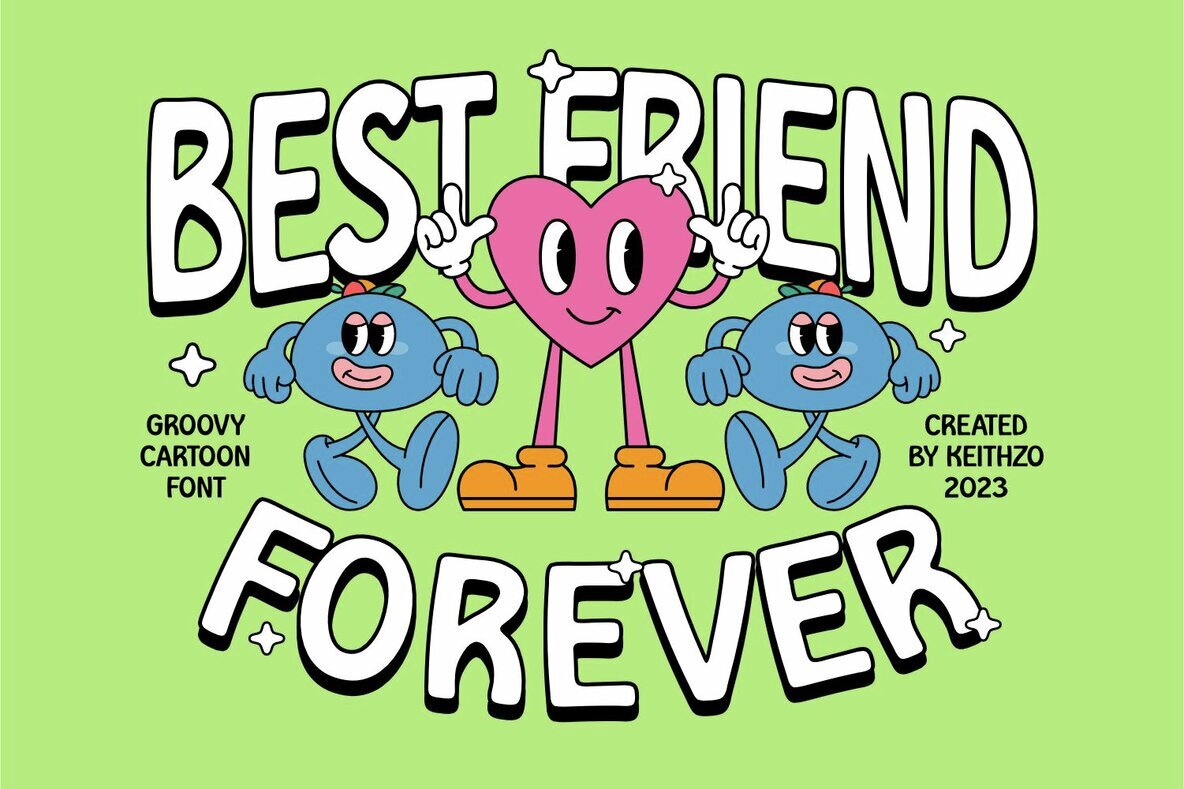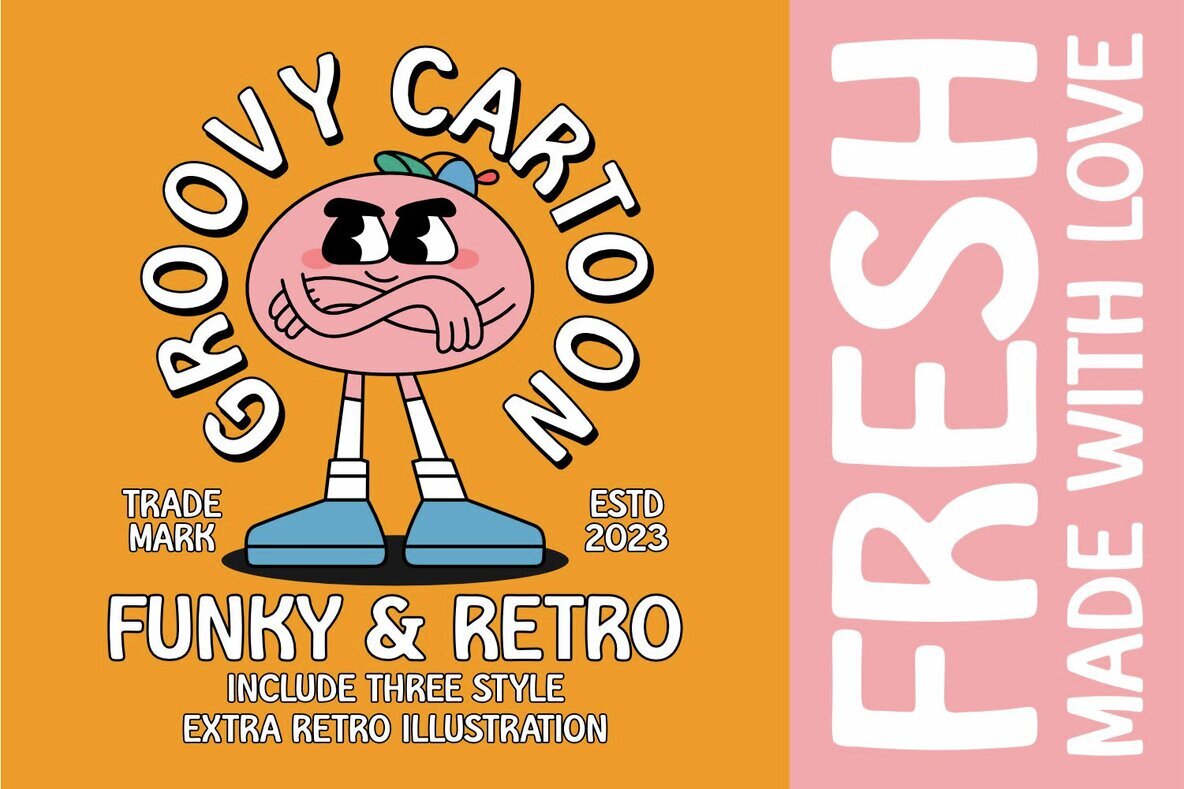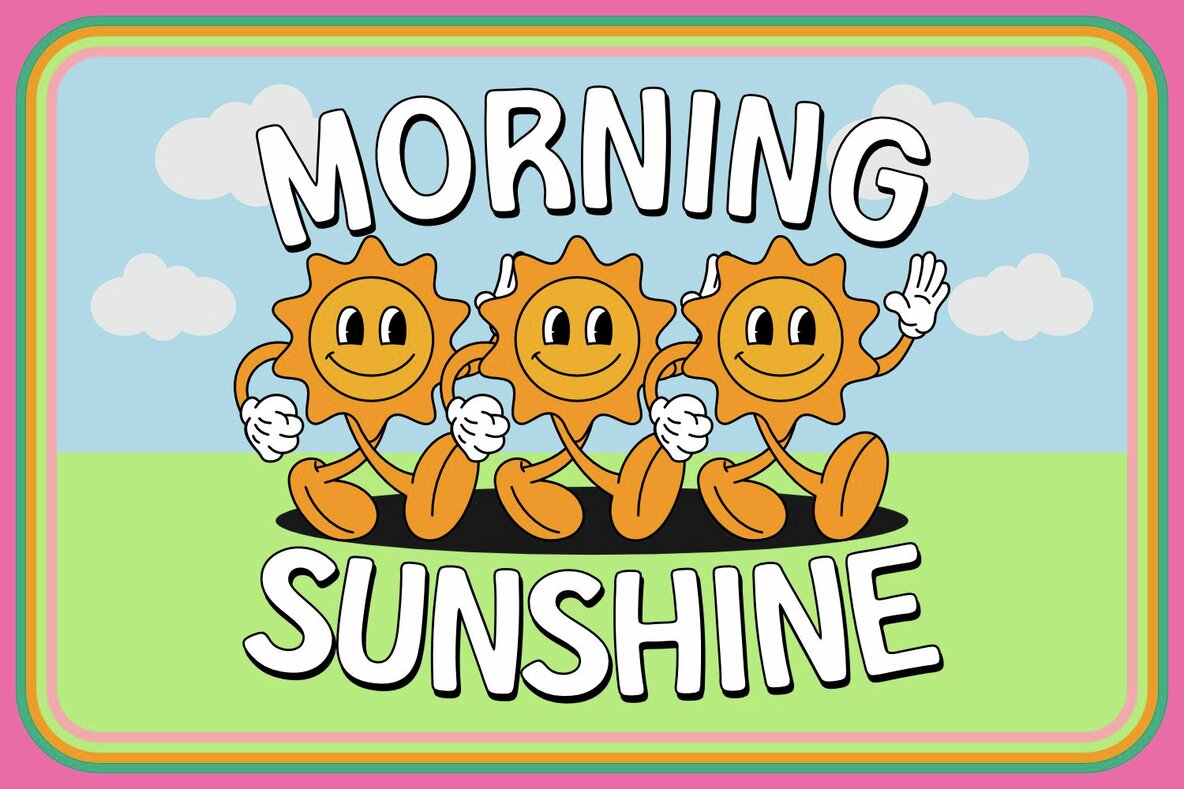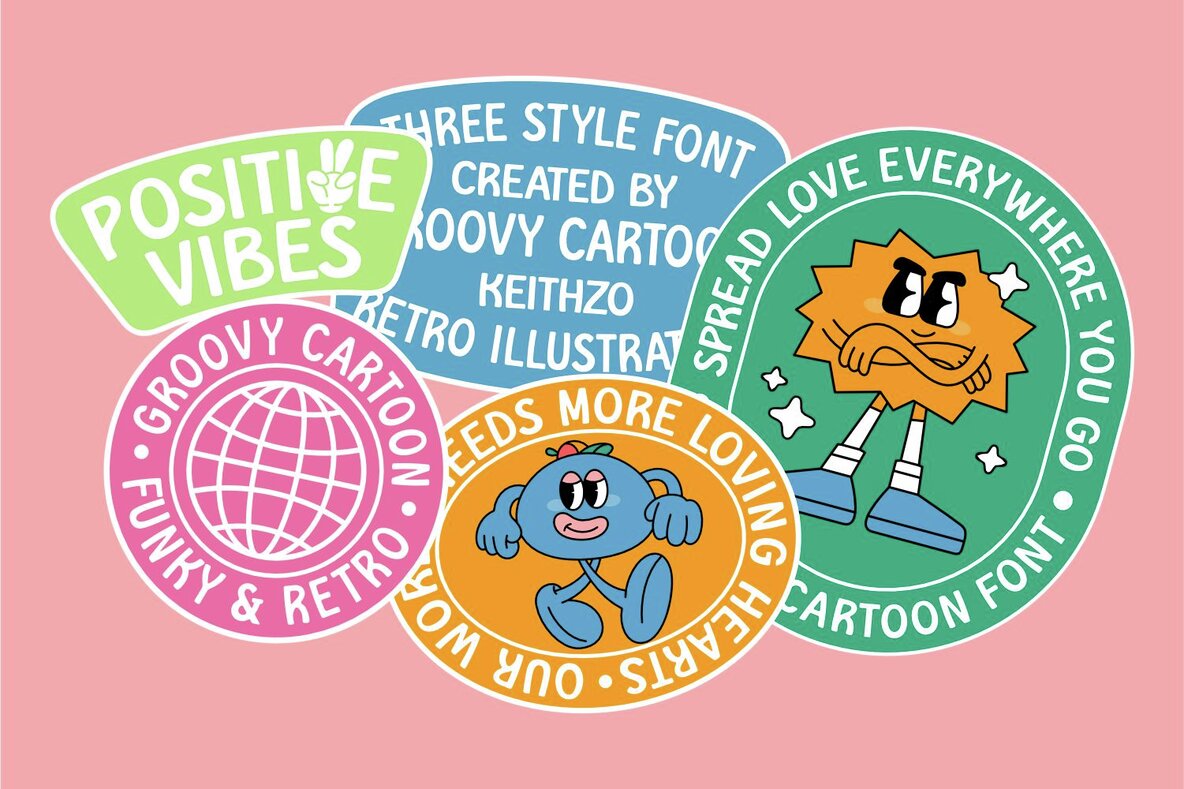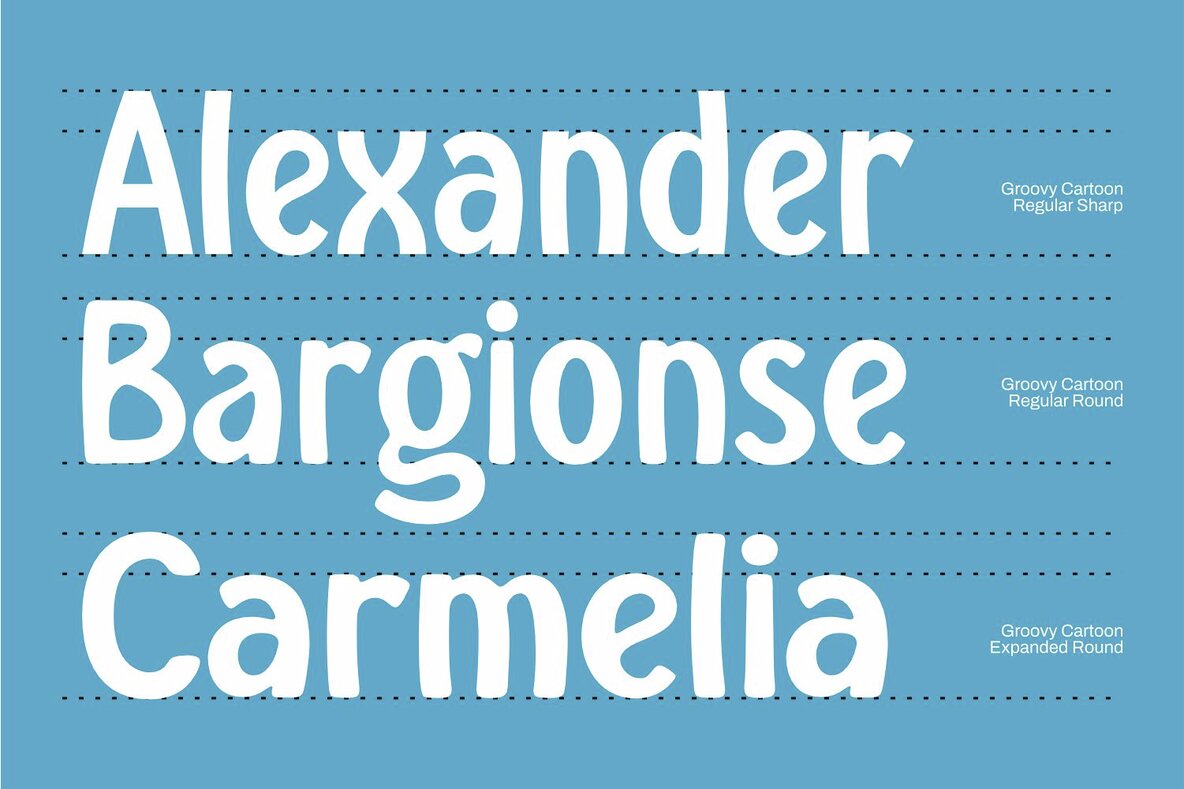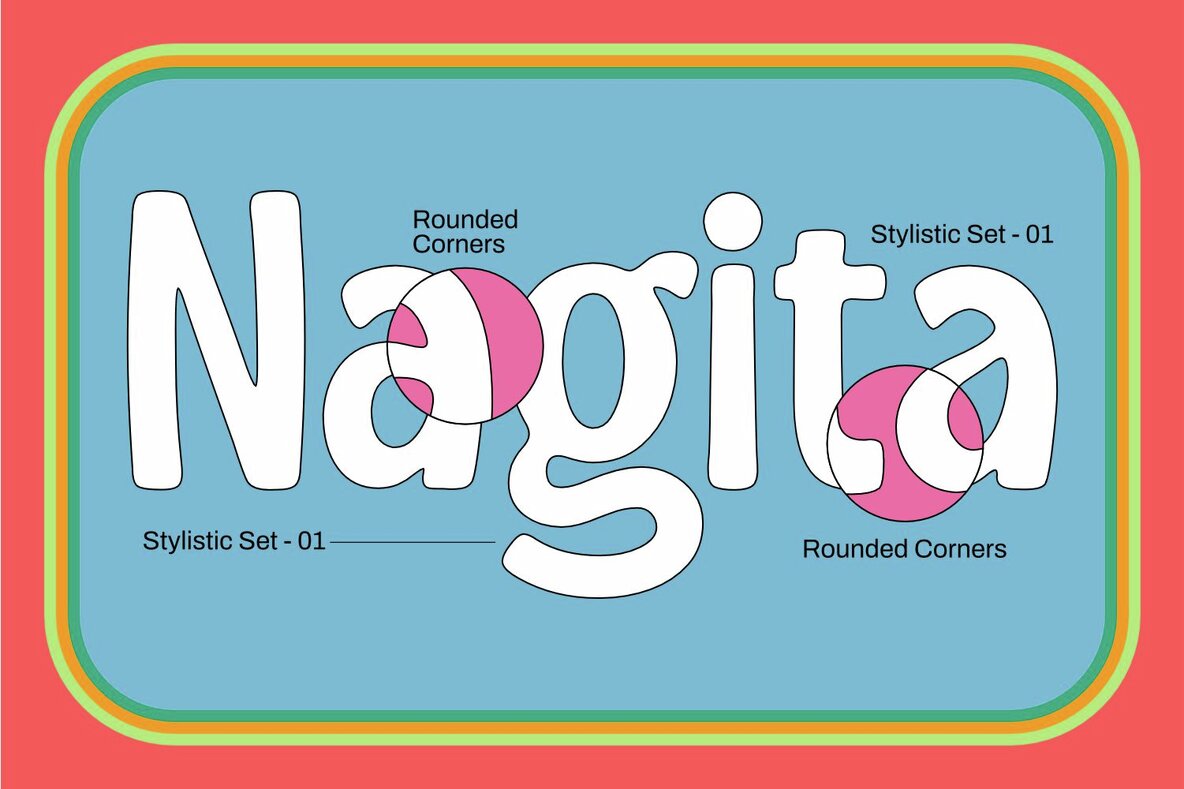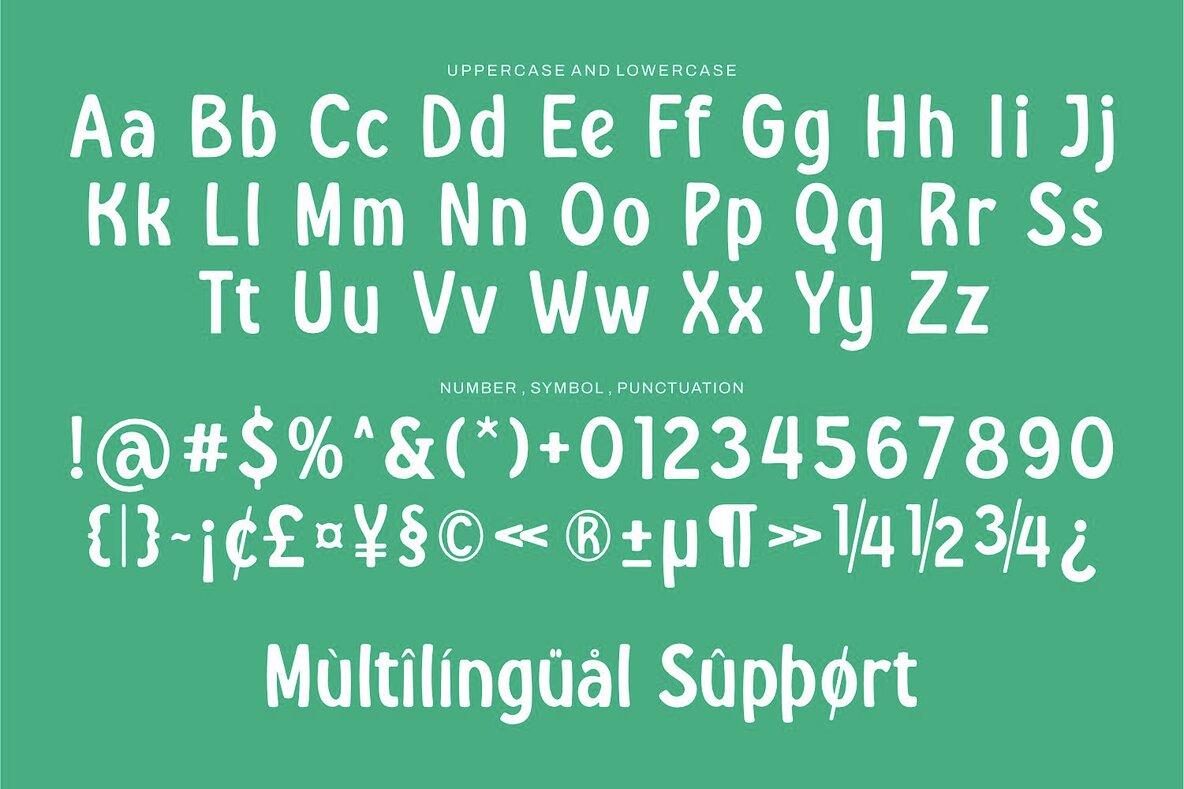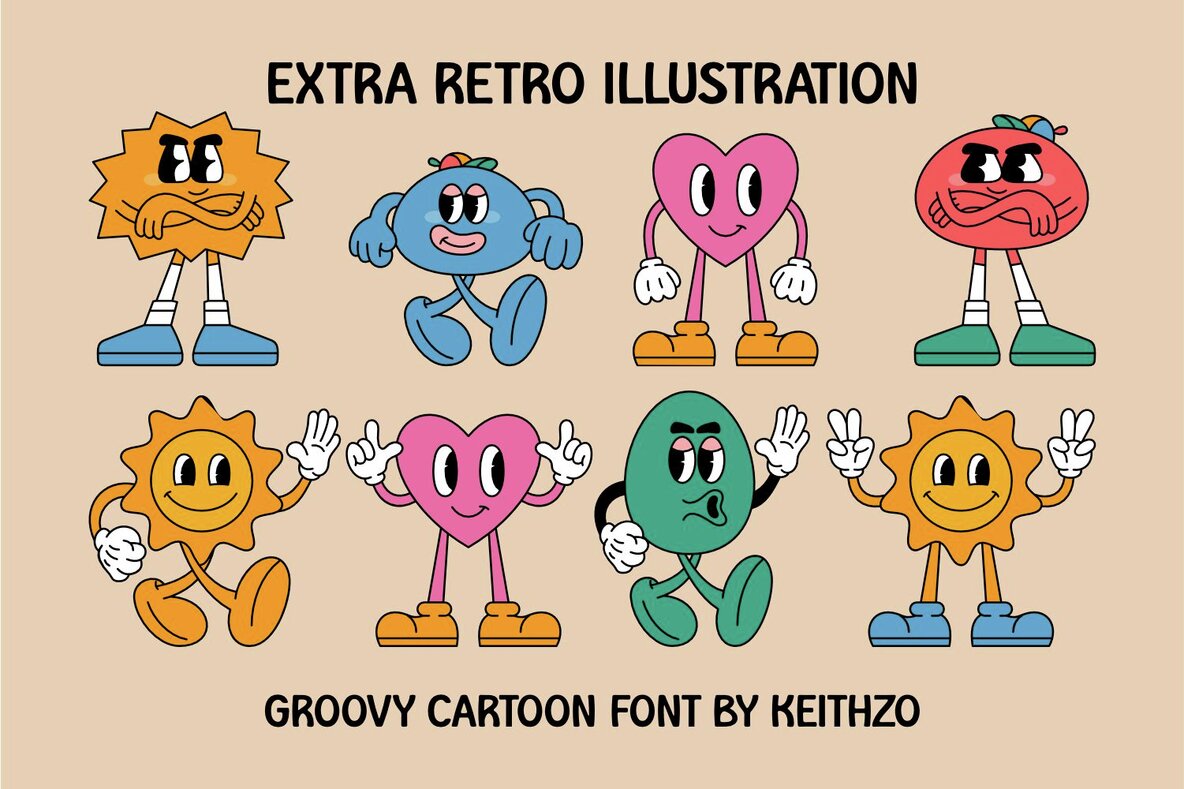
Groovy Cartoon Font
A balanced fusion of playful and professional, there are a ton of design projects this font will be perfect for. So add it to your creative ideas and notice how it makes them stand out!